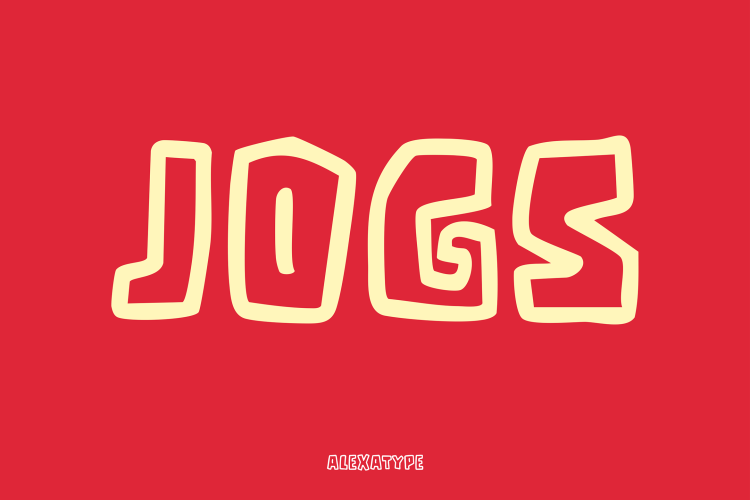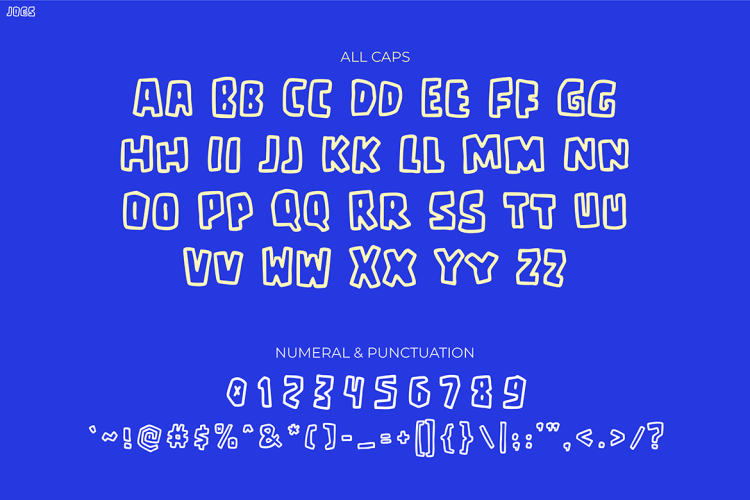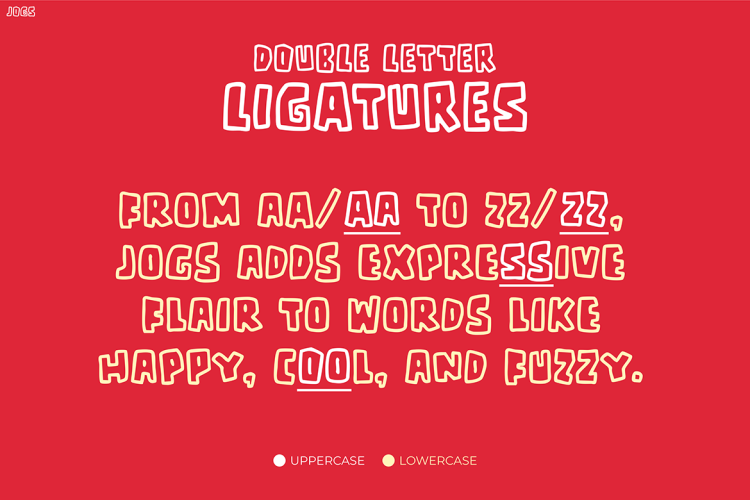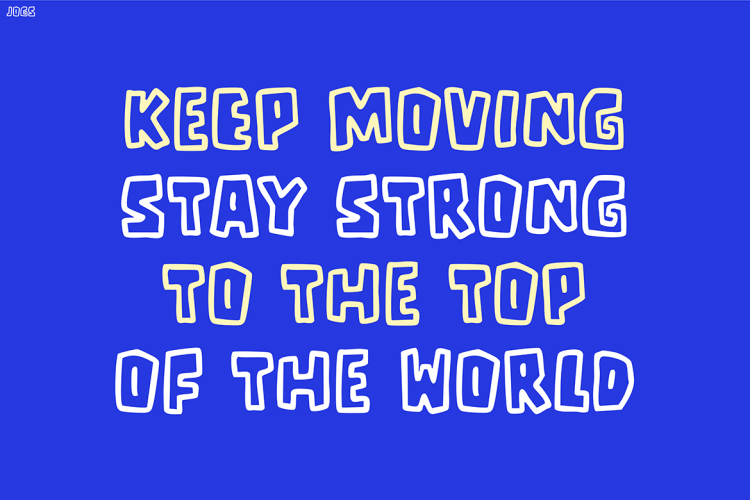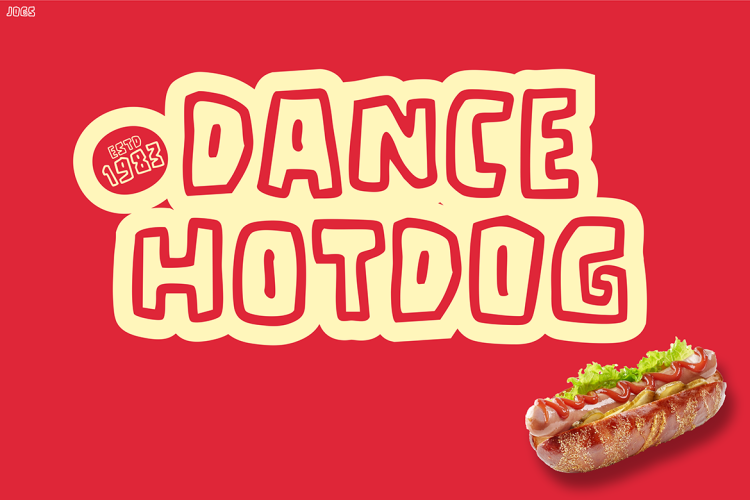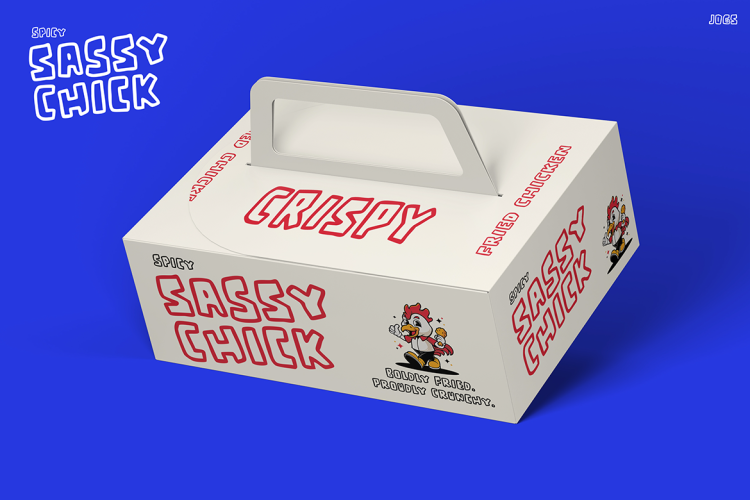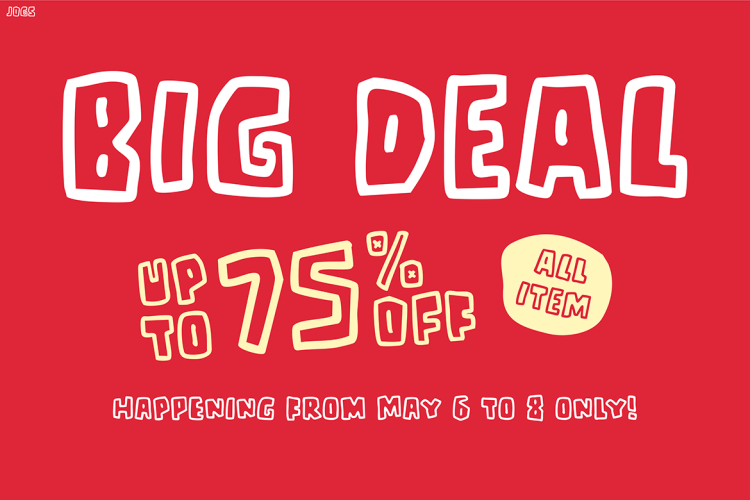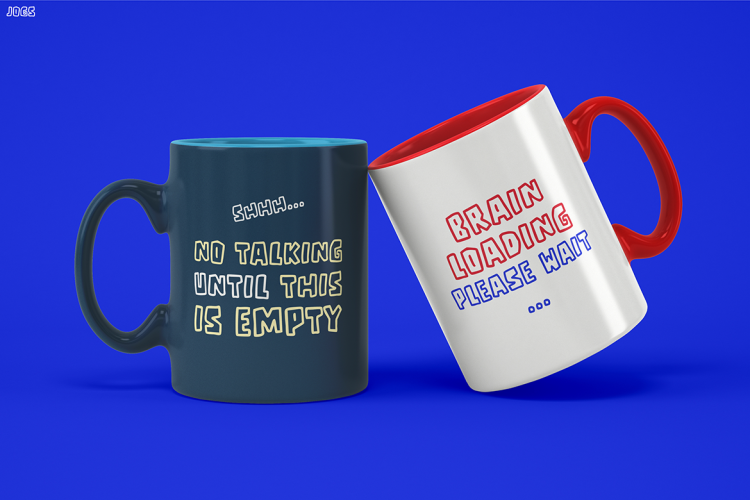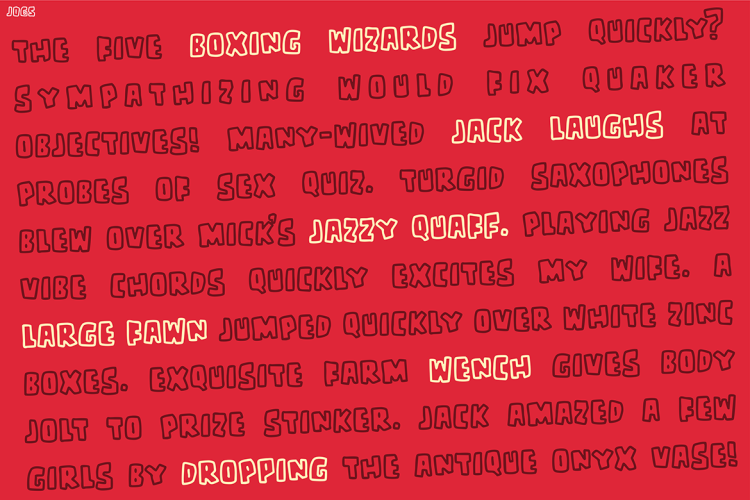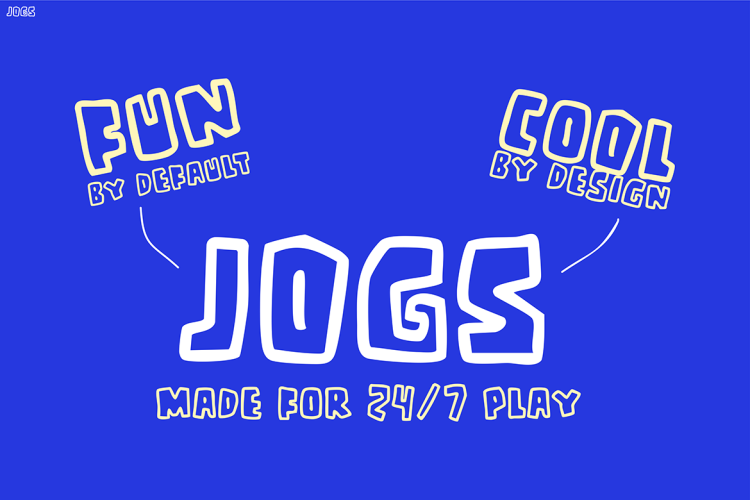
Instagram Font JOGS is the perfect typeface to inject fun, boldness, and energy into your designs. Its thick outlines and quirky shapes instantly grab attention. Moreover, the font adds personality to every word you type. With playful curves and a lively mood, JOGS makes even simple text feel exciting.
What sets JOGS apart is its expressive ligatures. For example, double letters like “OO”, “AA”, and “ZZ” blend into unique forms. These custom connections create rhythm and enhance the textโs flow. In fact, the all-caps format keeps everything bold and easy to read. Therefore, it works well across both digital and print media.
Whether used on packaging, mugs, or posters, the font adapts with ease. Additionally, the use of bright red and blue backgrounds helps the font pop. Each image shows how JOGS transforms plain words into vibrant visuals.
Instagram Font JOGS Perfect For Creatives, Brands, and Businesses
JOGS is ideal for creators who want to stand out. For instance, content designers, illustrators, and marketers can all benefit from its playful energy. If you run a youth brand, a cafรฉ, or a fashion shop, this font suits your vibe. It adds a cool, modern feel to any message.
Additionally, JOGS works great for product packaging and advertising. As shown the bold text is perfect for sales and promo announcements. Meanwhile, educators and YouTubers can use it in thumbnails and social media graphics. Because of its bold style, your content will attract more attention.
Even small businesses can gain from using JOGS. For example, food boxes, the font makes a brand look fresh and exciting.
So why settle for boring fonts? Let Instagram Font JOGS bring life to your visuals. With its fun, modern style, this font helps your designs speak louder. Try it today and make your content impossible to ignore.